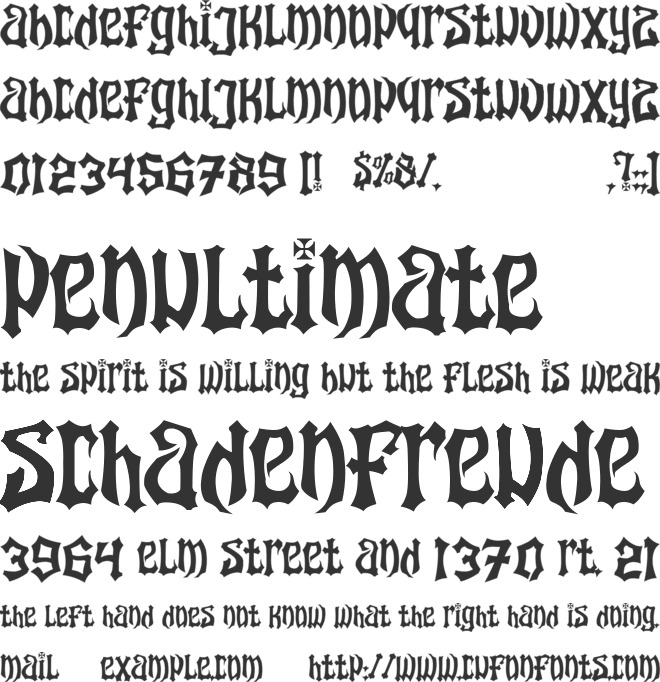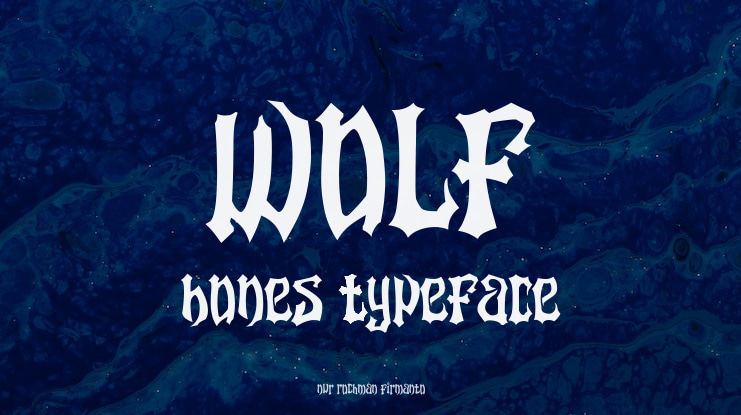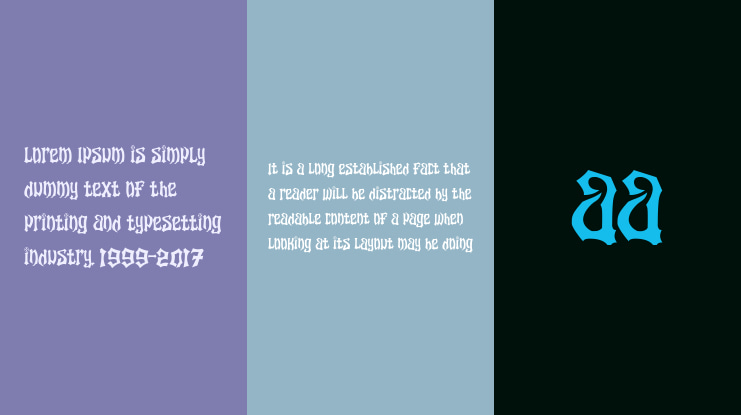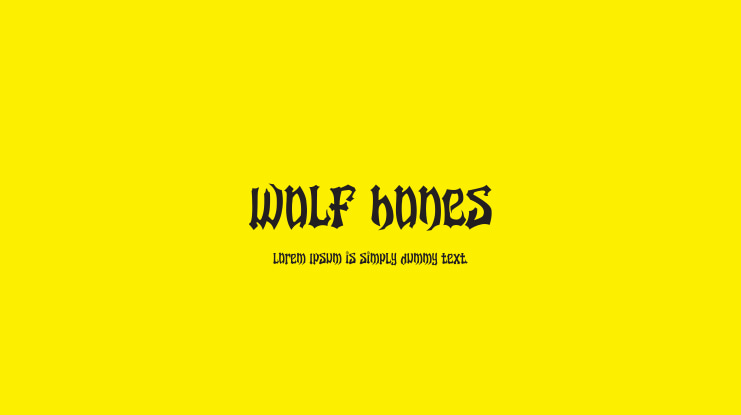
wolf bones Font
WOLFBONES is a contemporary blackletter font featuring unique wolf bone characters. This font was inspired by the band SERINGAI, my favorite band from Indonesia. It is perfect for various design projects such as posters, clothing, magazines, logos, branding, t-shirts, and more. Feel free to use this font for your creative endeavors. For commercial use, visit: [link]